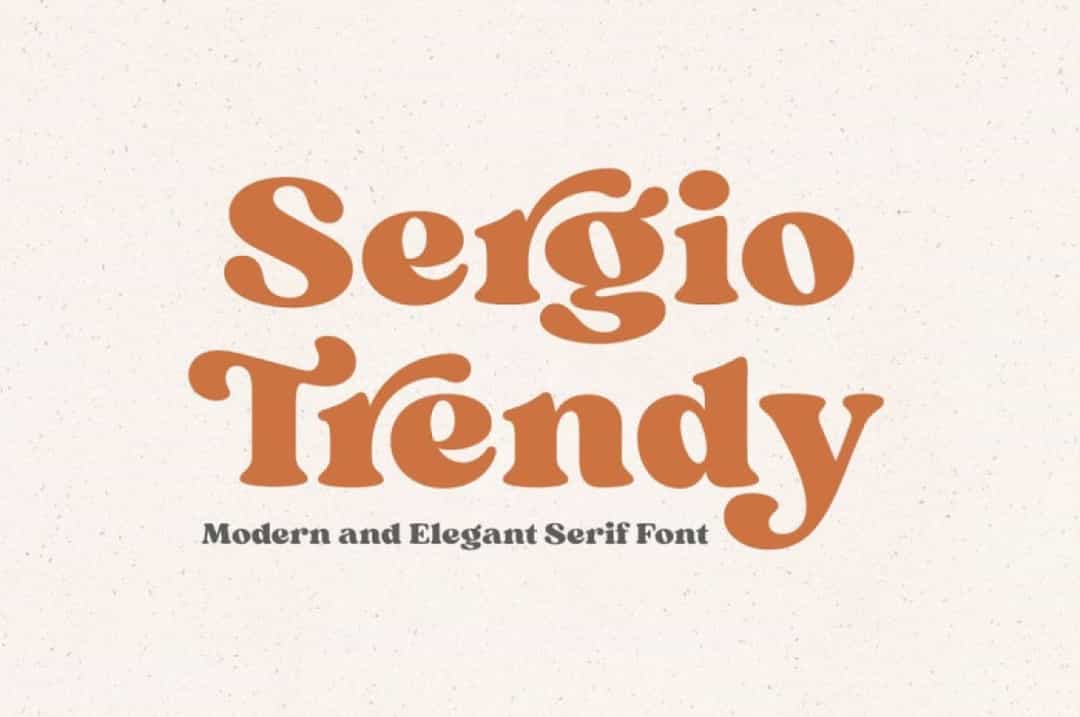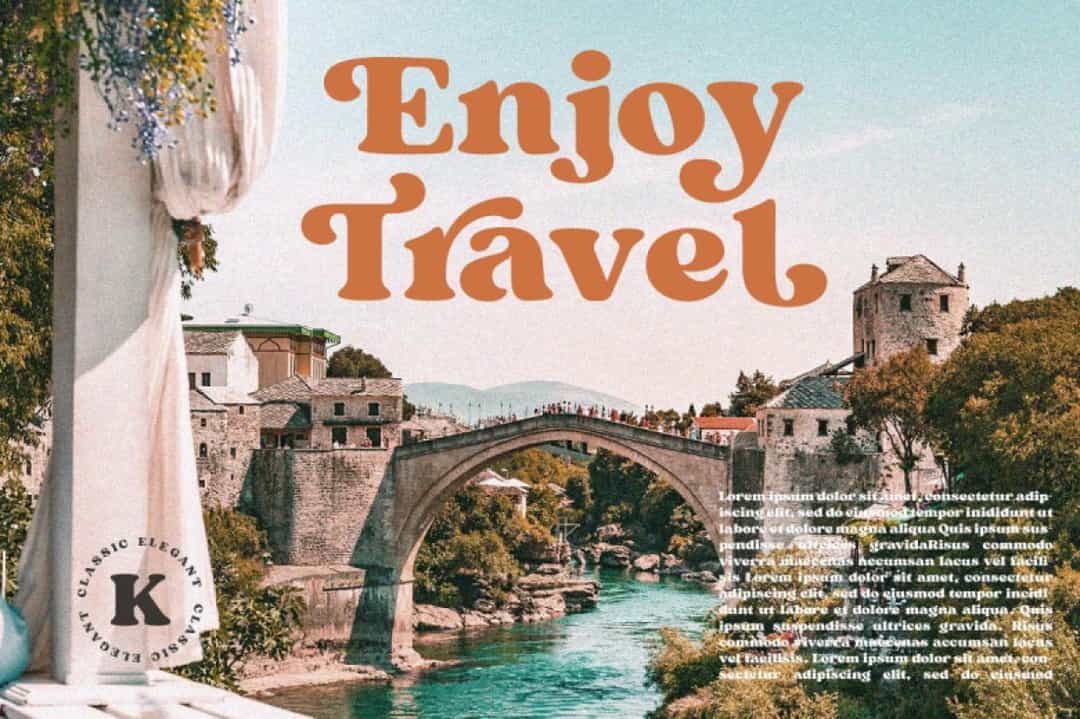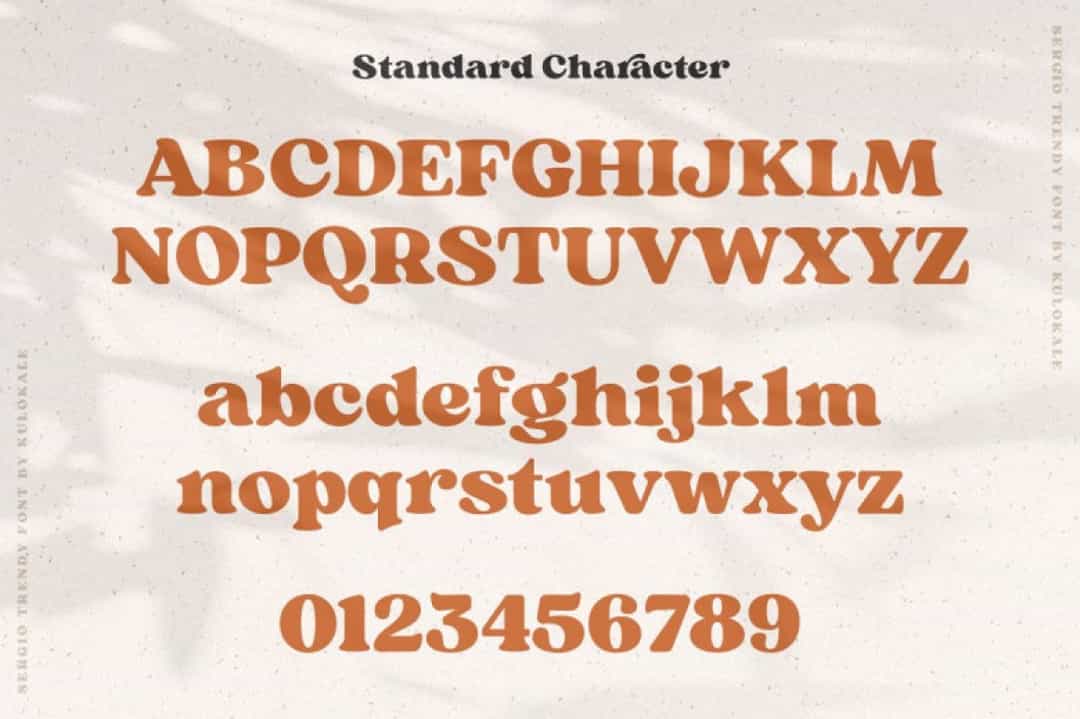
Sergio Trendy is a vintage-style serif typeface with an elegant and modern aesthetic, created using characters spanning different font families. Perfect for branding, advertising packaging, logotypes, headlines, titles and editorial design projects alike.